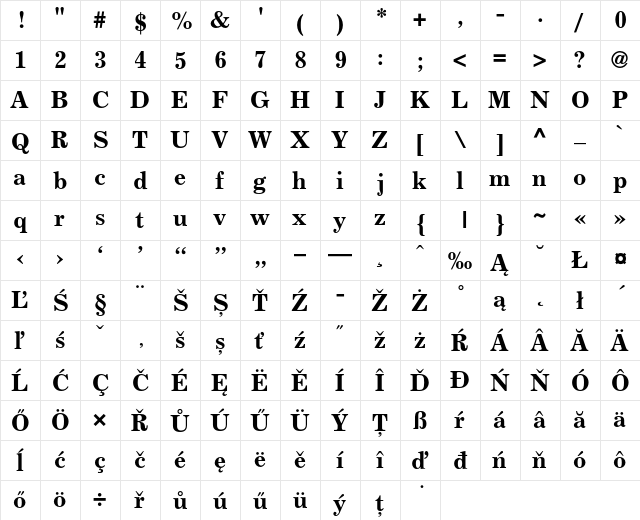
Excelsior EastA Bold
Design Context for Excelsior Typeface
Excelsior takes a measured approach to typography — its balanced proportions and neutral character make it a reliable workhorse for both digital and print work. Its bold stroke weight gives it real presence on the page.